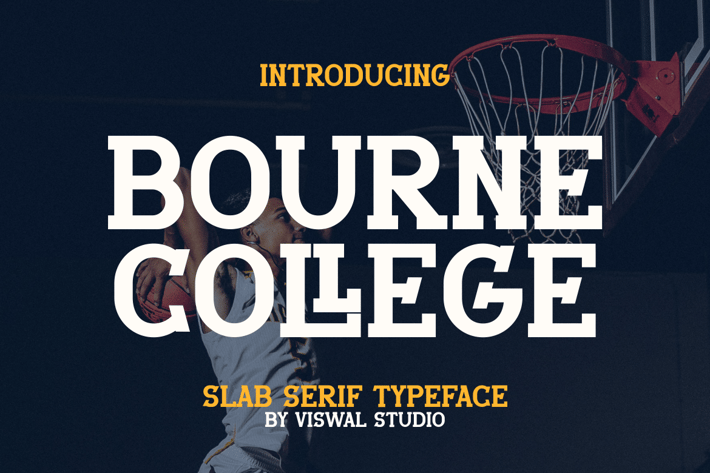
Bourne College - Slab Serif Font
Presenting Bourne College - Font is suitable for badge, labels, logo, branding, magazine, poster and etc. Our fonts have Uppercase & Lowercase, Numeral & Punctuation, Multilingual support and Opentype Features. For Amazing designs you can mix with other fonts as a complement.